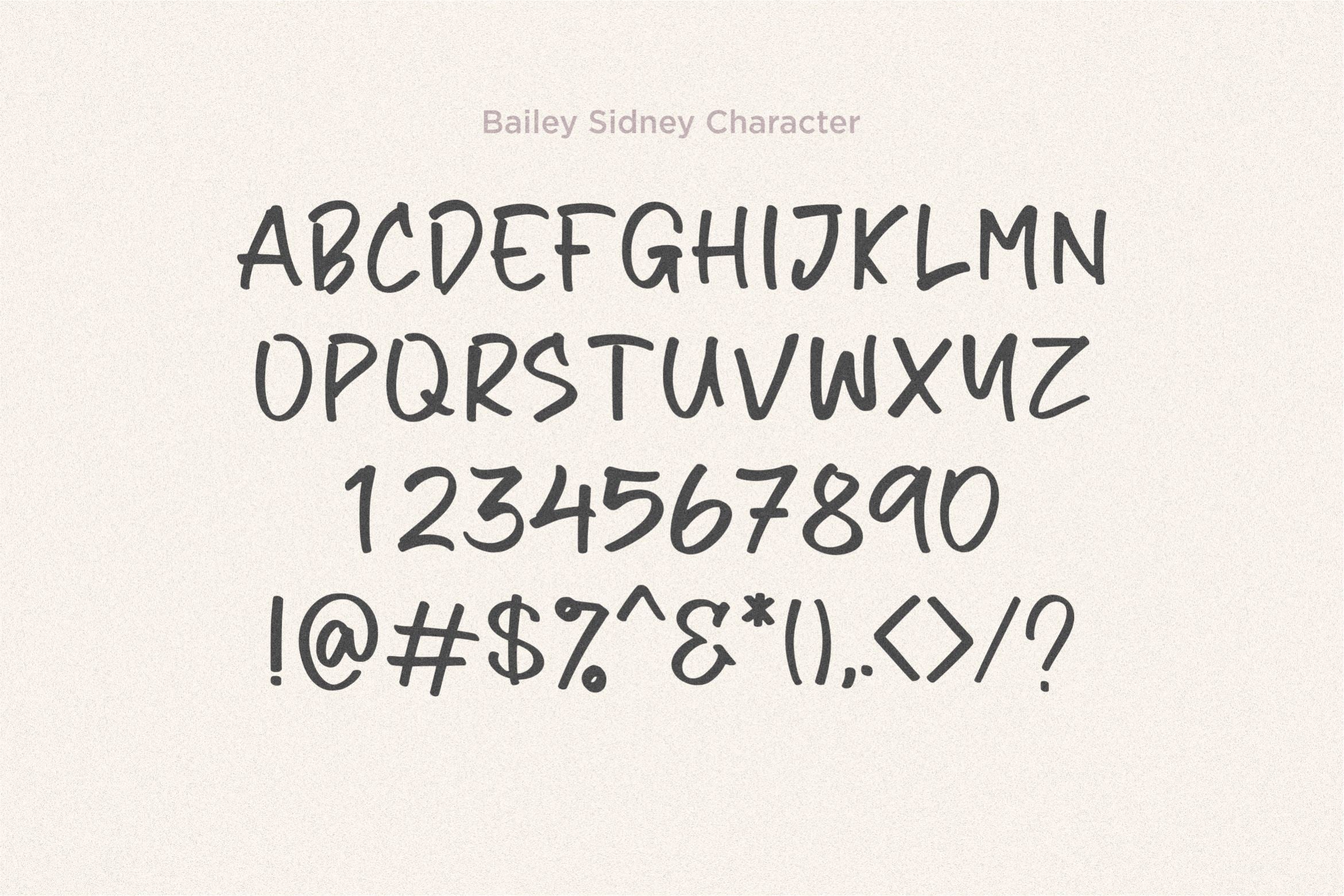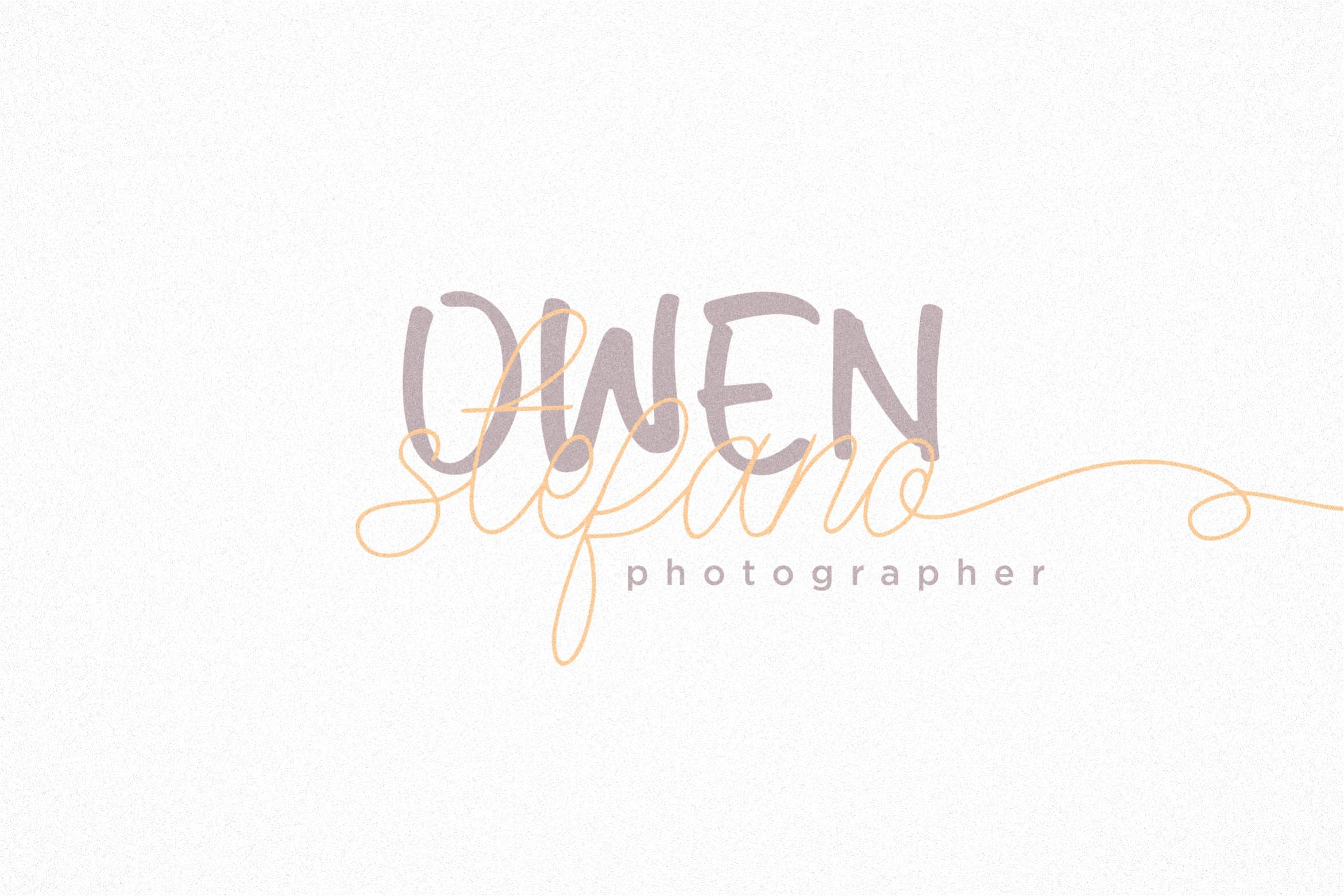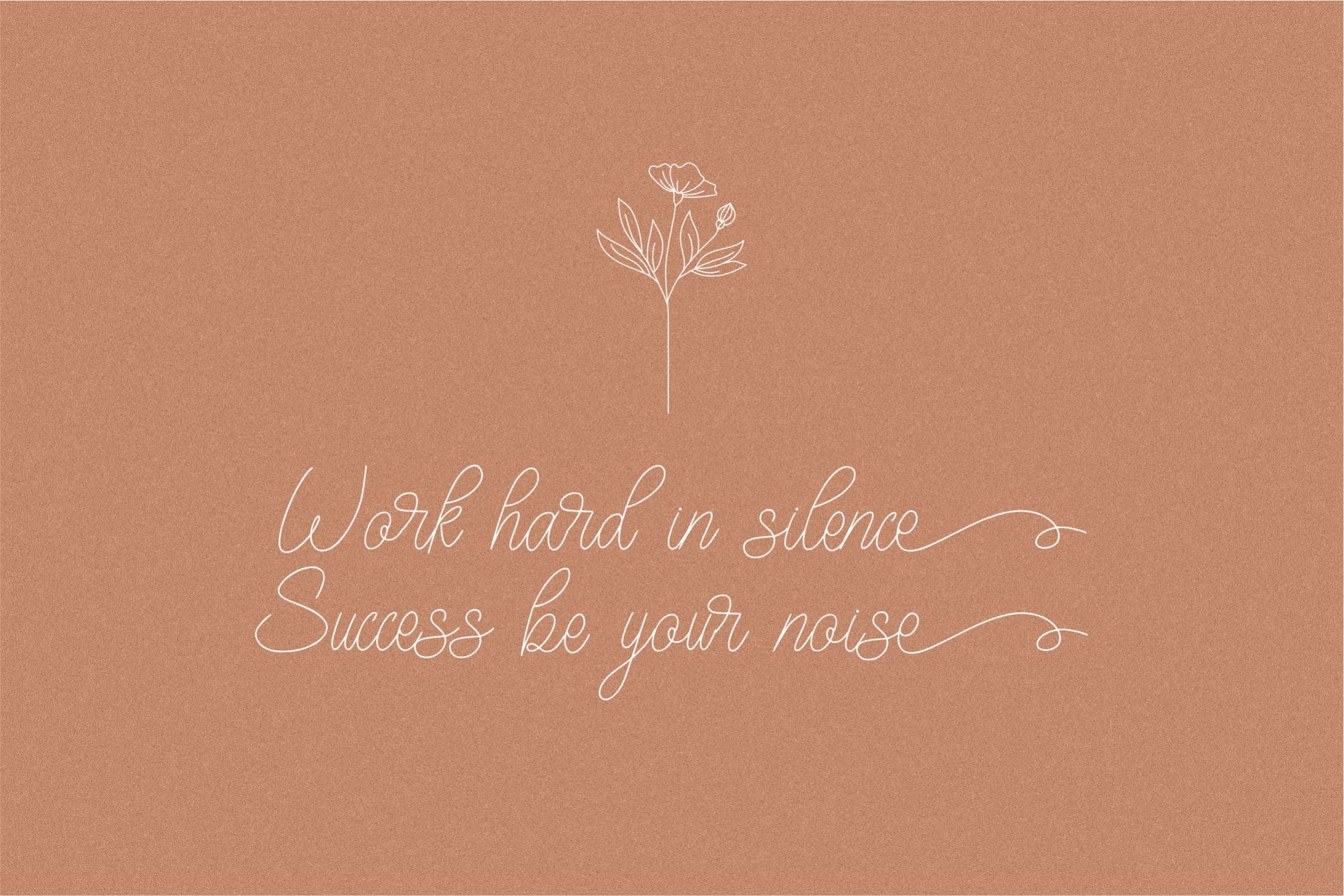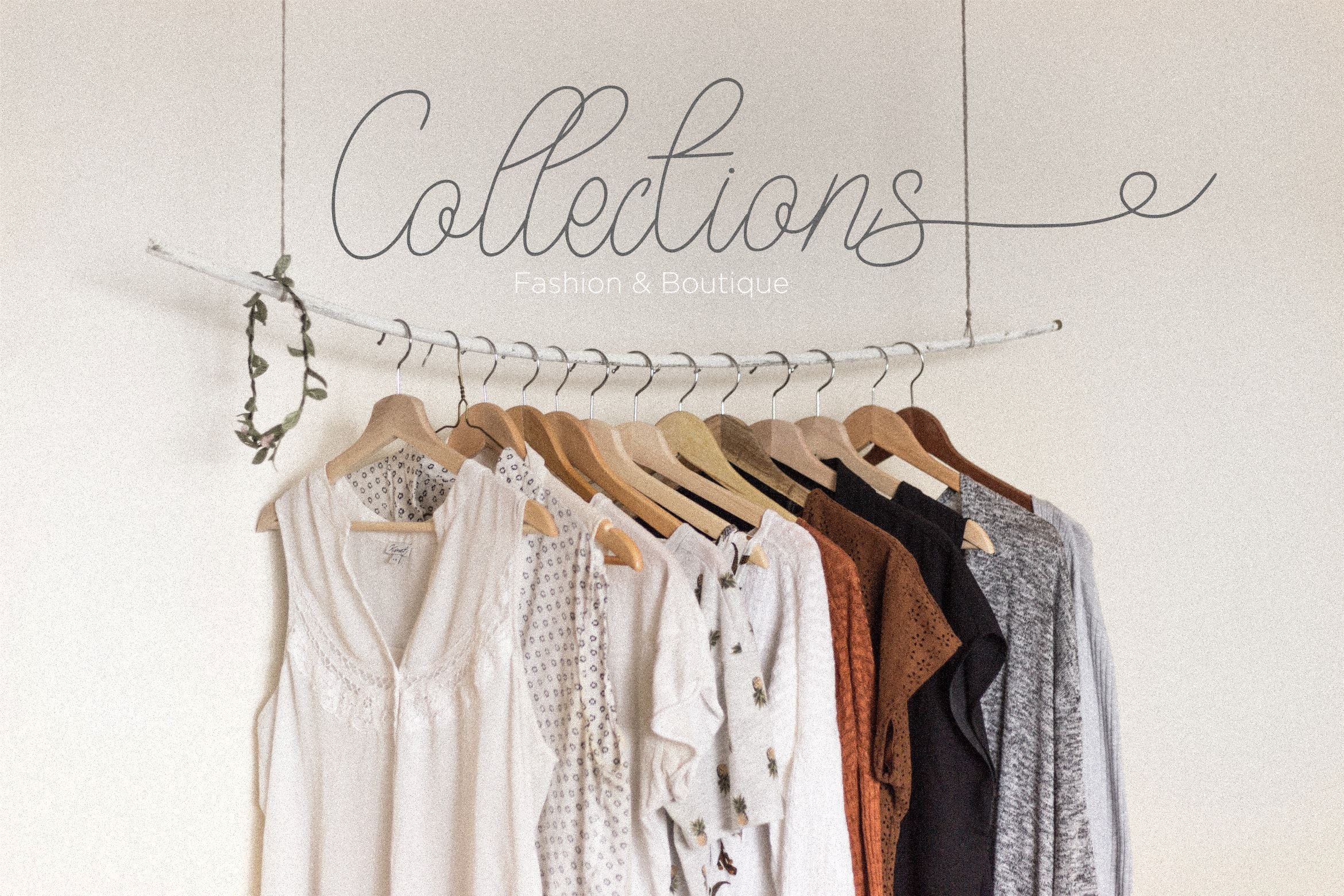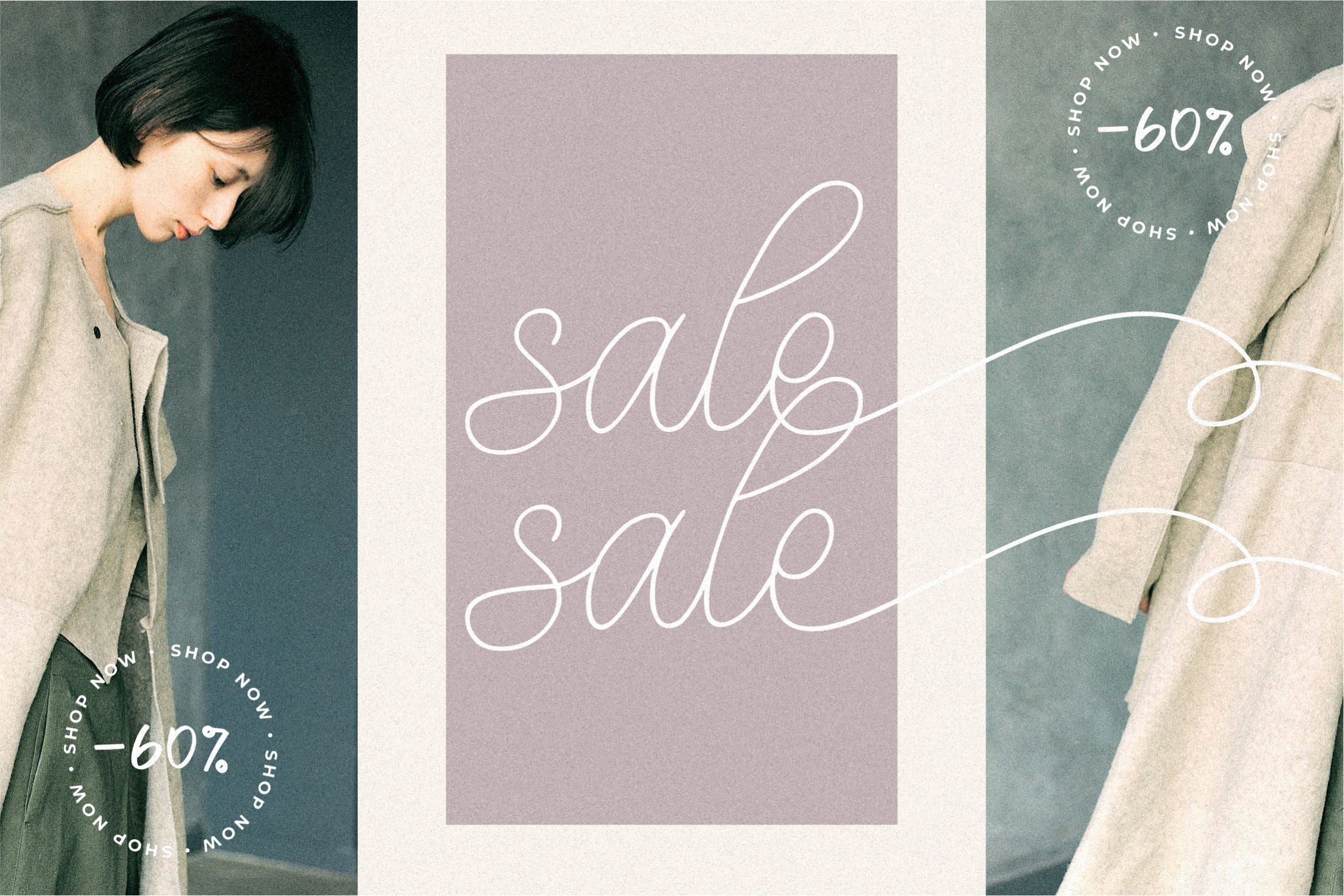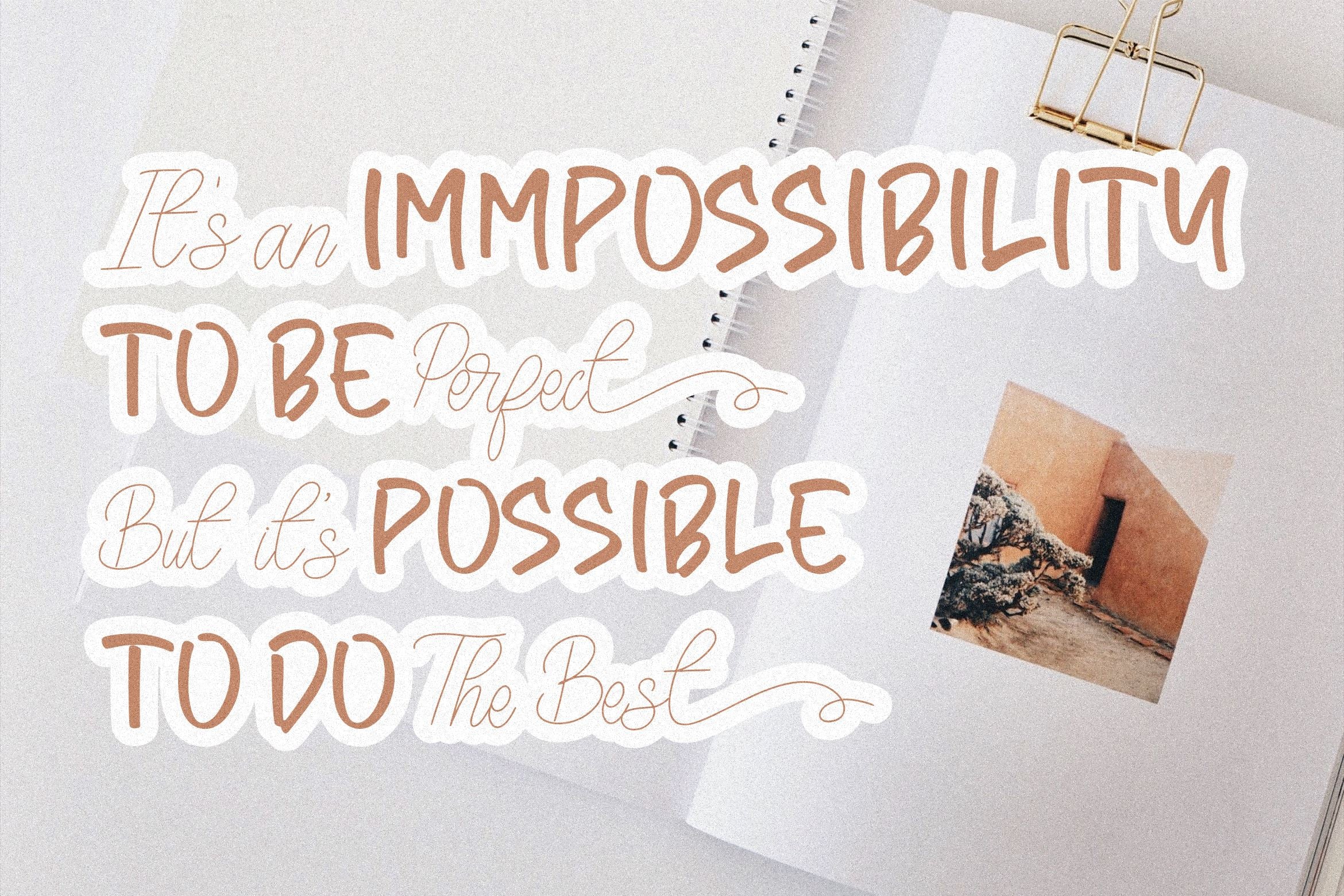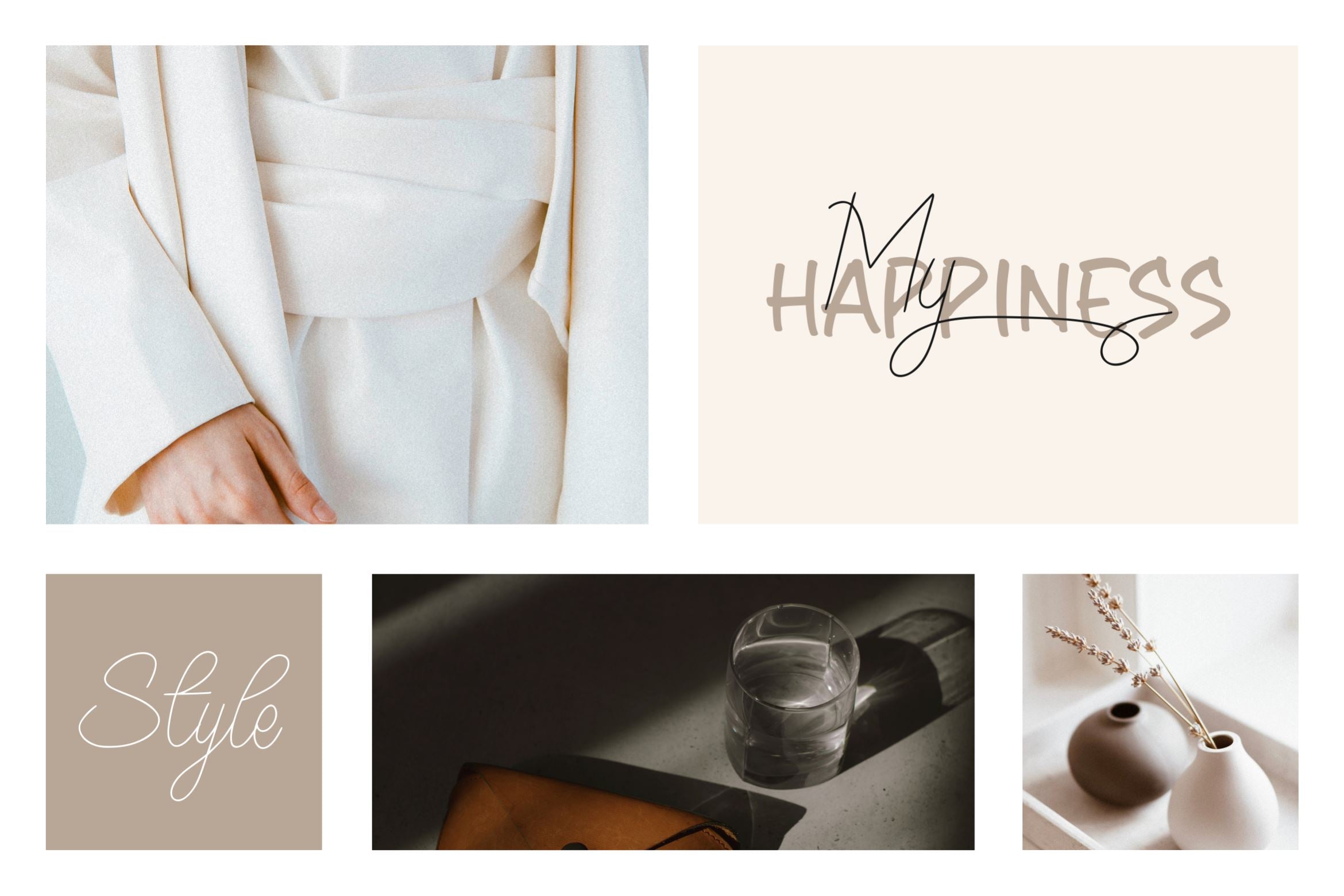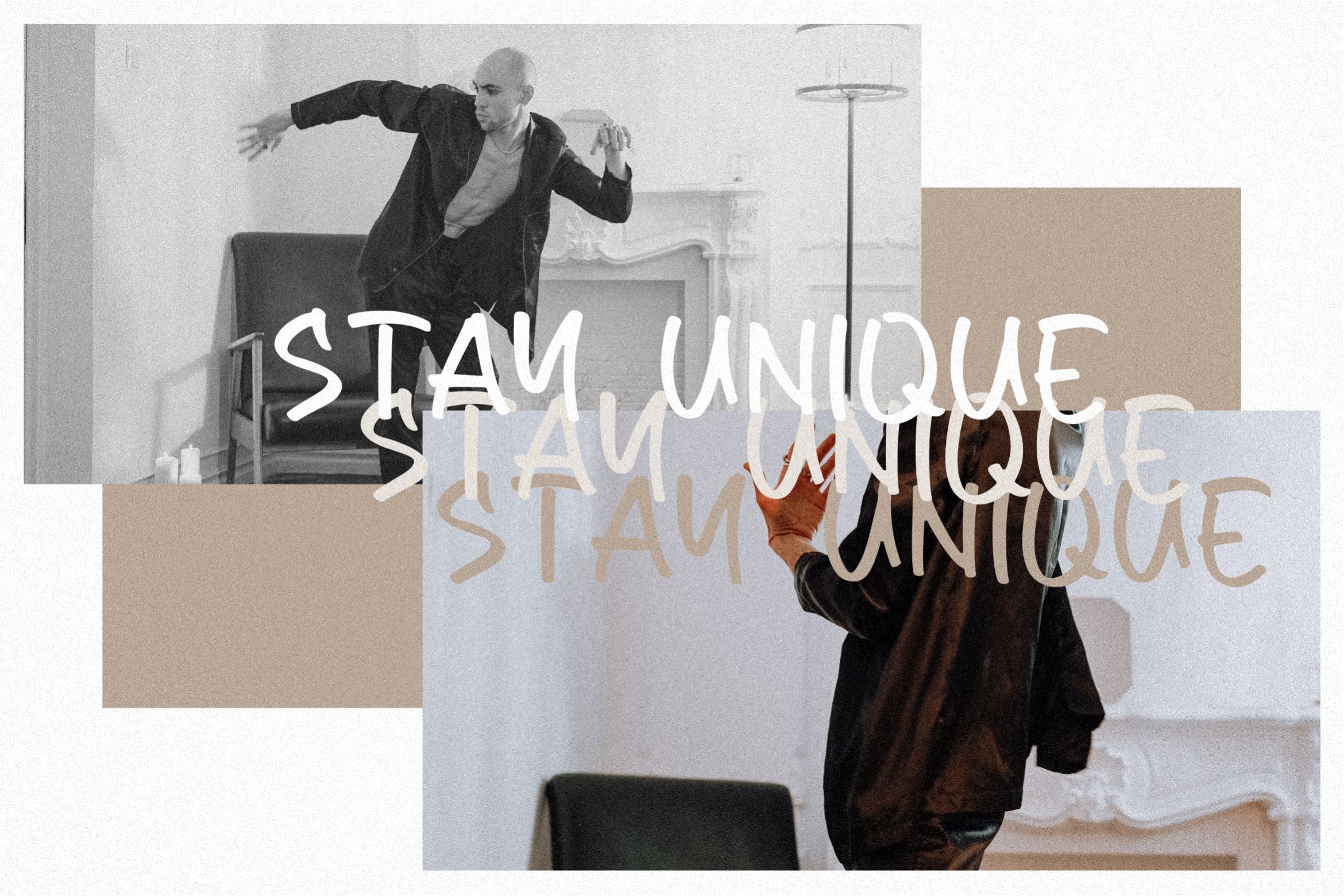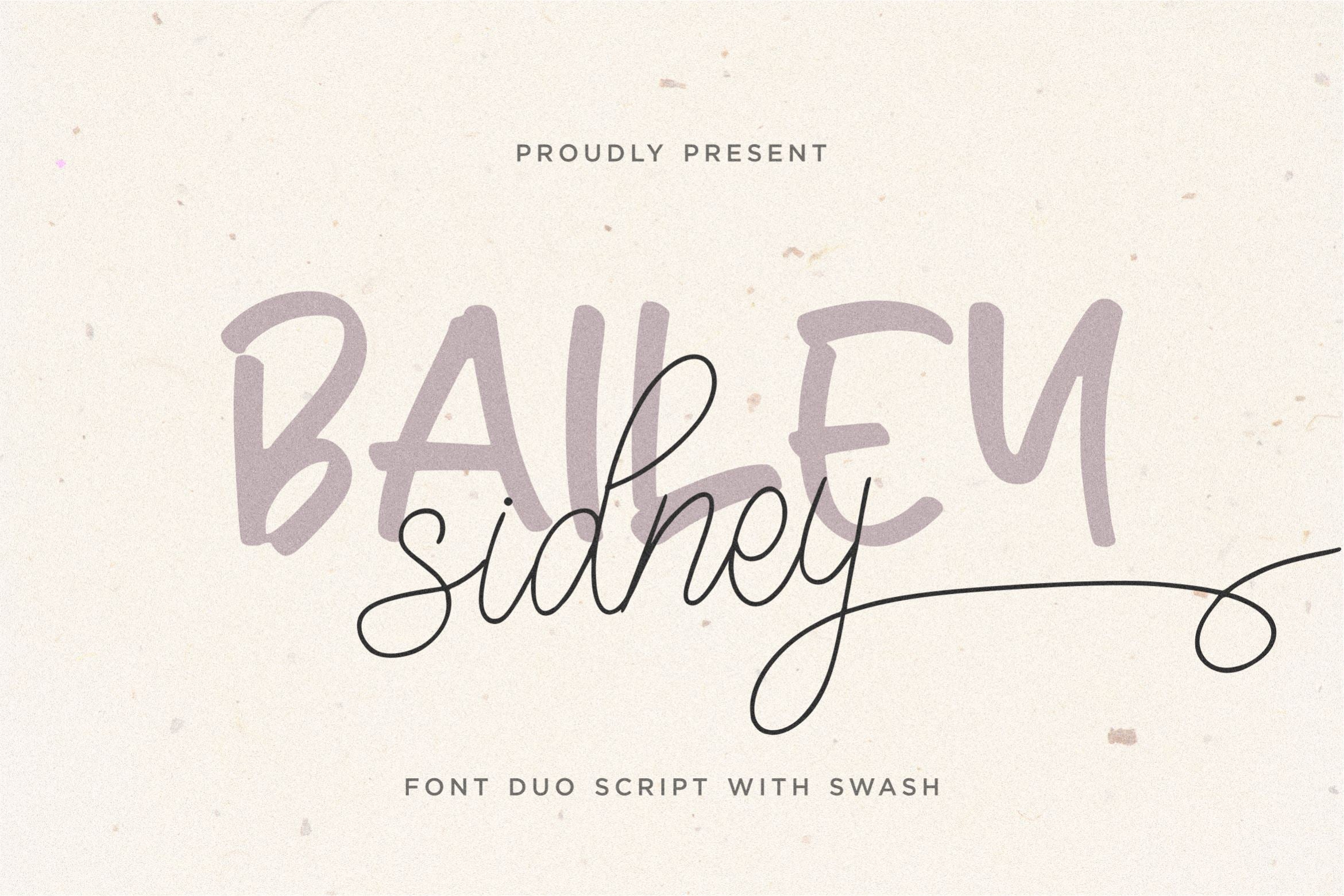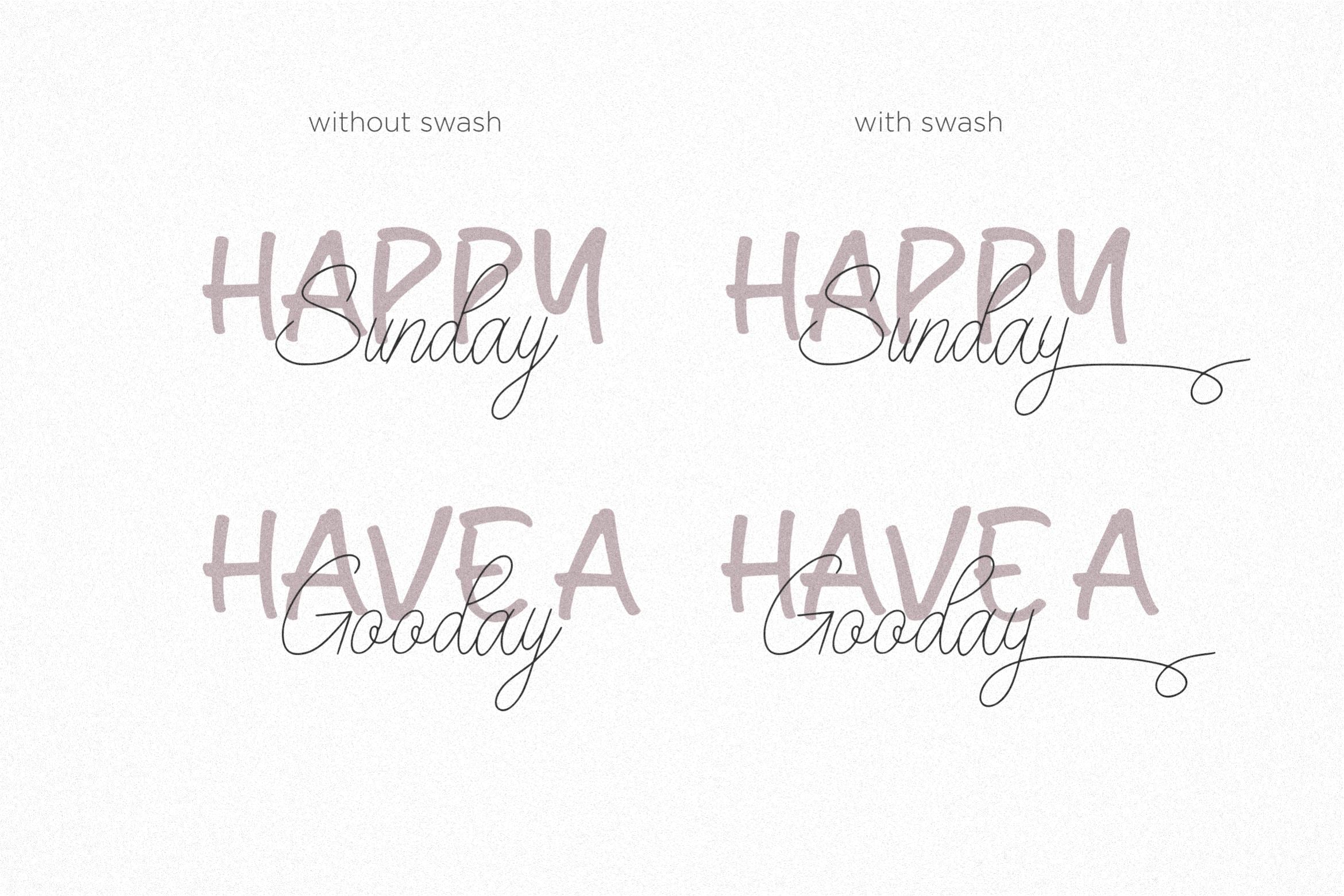
Bailey Sidney
Introducing by Qwrtype Proudly Present, Bailey Sidney Bailey Sidney is a Font Duo Script with Swash Bailey Sidney is perfect for product packaging, branding project, megazine, social media, wedding, or just used to express words above the background. This font includes OTF, TTF & Woff,  Bailey Sidney also multilingual support. Enjoy the font, feel free to comment or feedback, send me PM or email. Thank you!